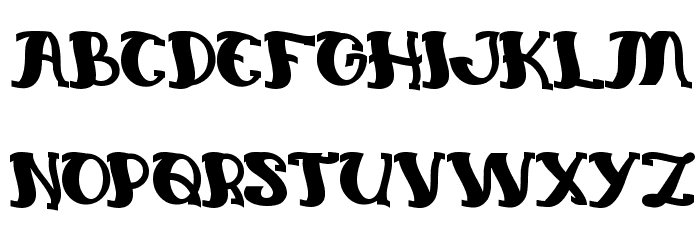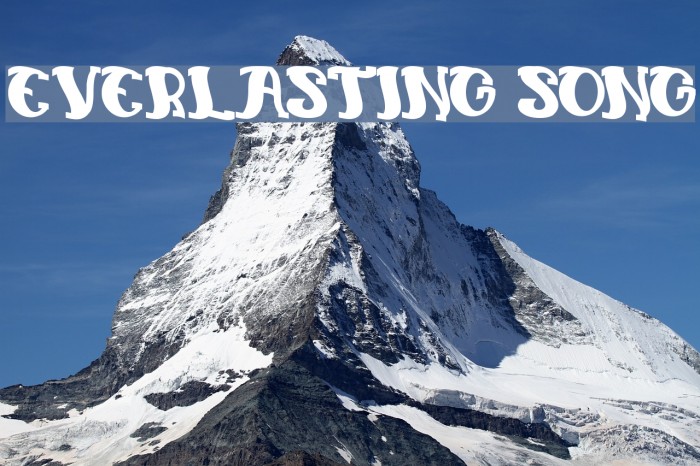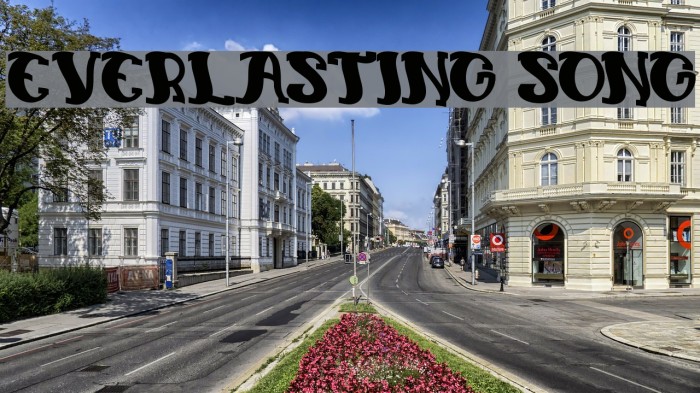
everlasting song Font
This font features a bold and decorative style with a unique flair. The characters are designed with a playful, artistic touch, incorporating curves and flourishes that give it a dynamic and lively appearance. The uppercase letters are particularly striking, with exaggerated serifs and strokes that create a sense of movement. The overall design is reminiscent of a hand-drawn script, yet maintains a structured form that ensures readability. This font would be ideal for projects that require a bold statement or an artistic edge, such as posters, album covers, or branding materials.
A bold, decorative font with artistic curves and flourishes.
- Proposed Projects: Ideal for posters, album covers, branding materials, and artistic projects.